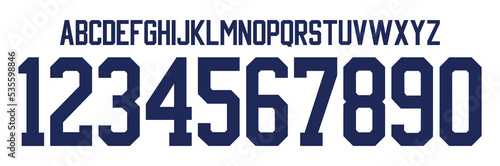
font vector team 2022 kit sport style font. football style font with lines. United States font world cup.sports style letters and numbers for soccer team